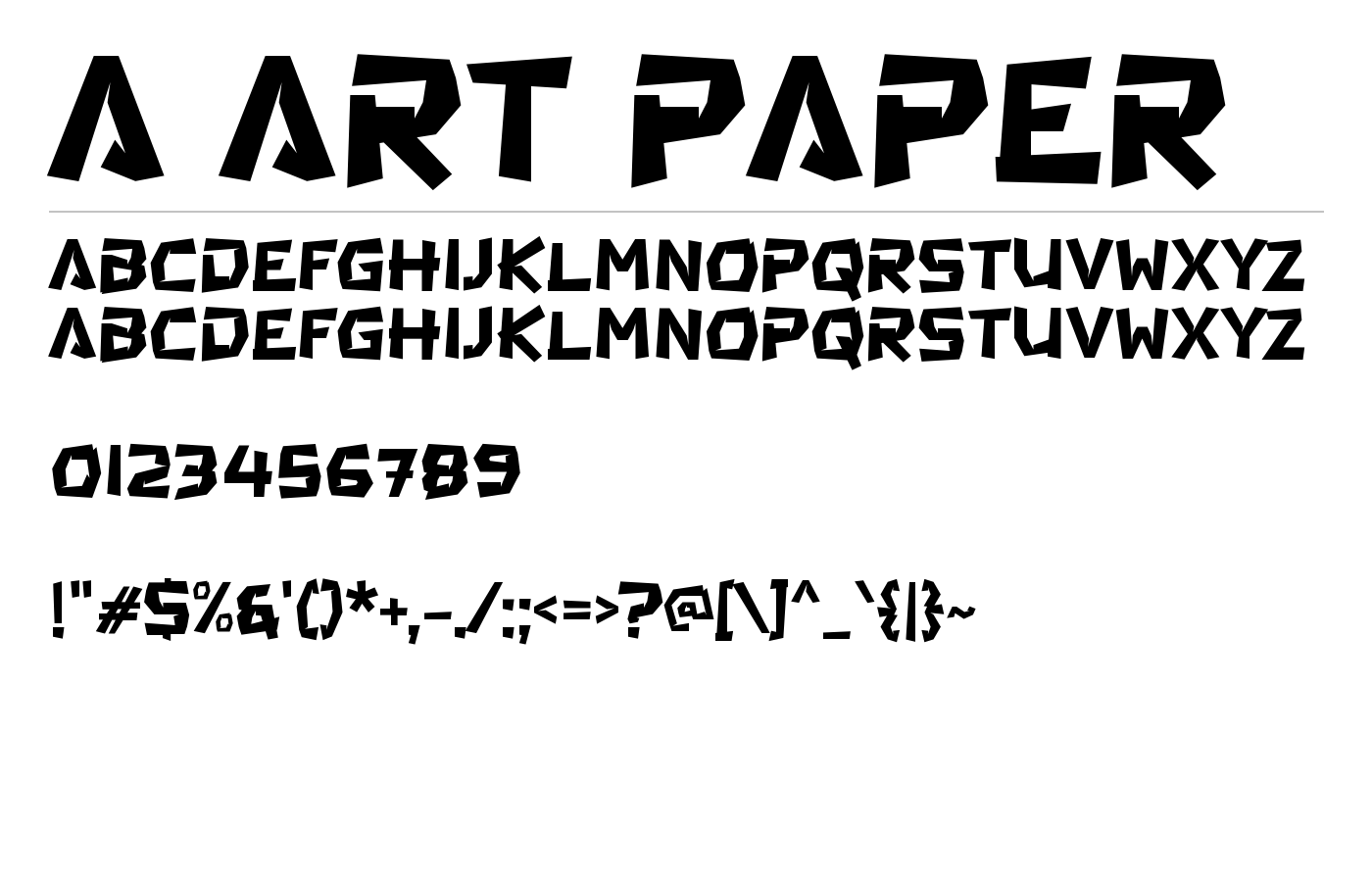
a Art Paper Font is a bold, angular sans serif typeface with a playful, hand-cut look that captures an artistic, edgy vibe. Its irregular shapes and sharp edges make it ideal for creative projects, posters, and branding that aim to stand out with a dynamic, unconventional style. This font works best for headlines and display use where its unique, energetic personality can truly shine.
a Art Paper Font
About a Art Paper Font